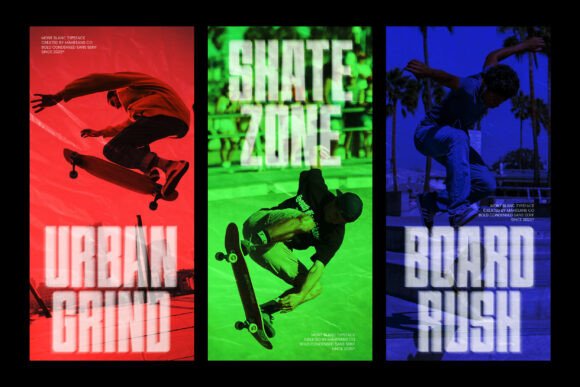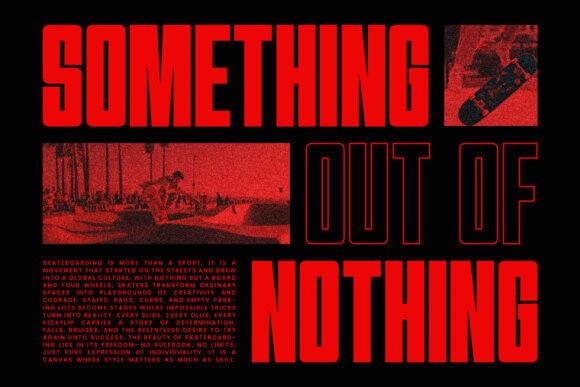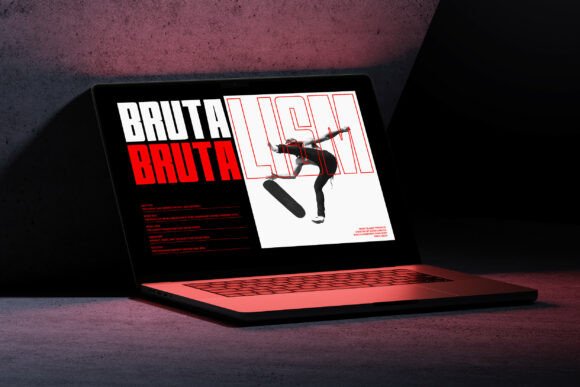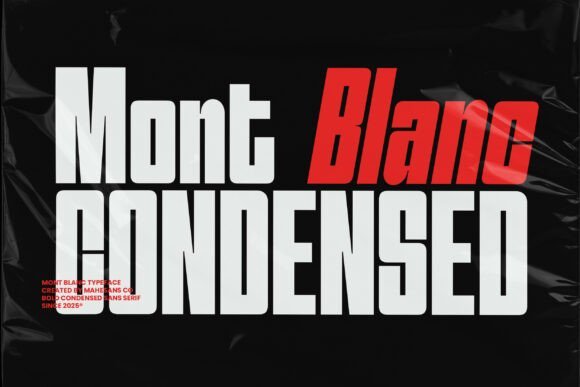
Introduction to Mont Blanc Font
Mont Blanc is a bold condensed sans serif that stands tall with confidence and strength.
Designed for impact and clarity, it features thick vertical forms, tight letter spacing, and modern geometric construction — perfect for projects that need to grab attention instantly This typeface carries a strong visual rhythm and industrial precision, making it perfect for headlines, posters, logos, packaging, and sports designs.